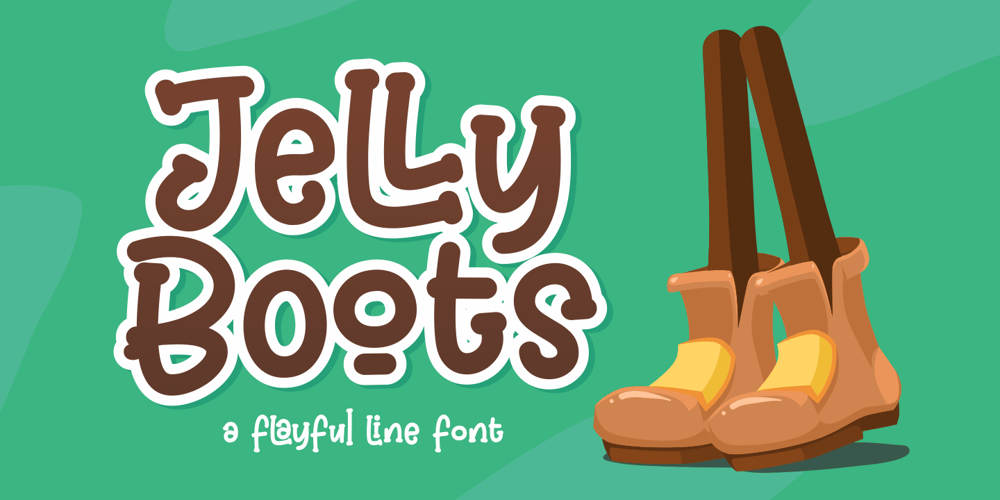
Jelly Boots
Jelly Boots font
Jelly Boots Font Family was designed by Riyadh Abuhafs and published by Awan Senja. Jelly Boots contains 1 styles and family package options. Jelly Boots is a cute display font, carefully created to become a true favorite. Its casual charm makes it appear wonderfully down-to-earth, readable and, ultimately, incredibly versatile. This versatility will appeal to a wide range of crafty ideas, from letterheads and titles, to stationery.